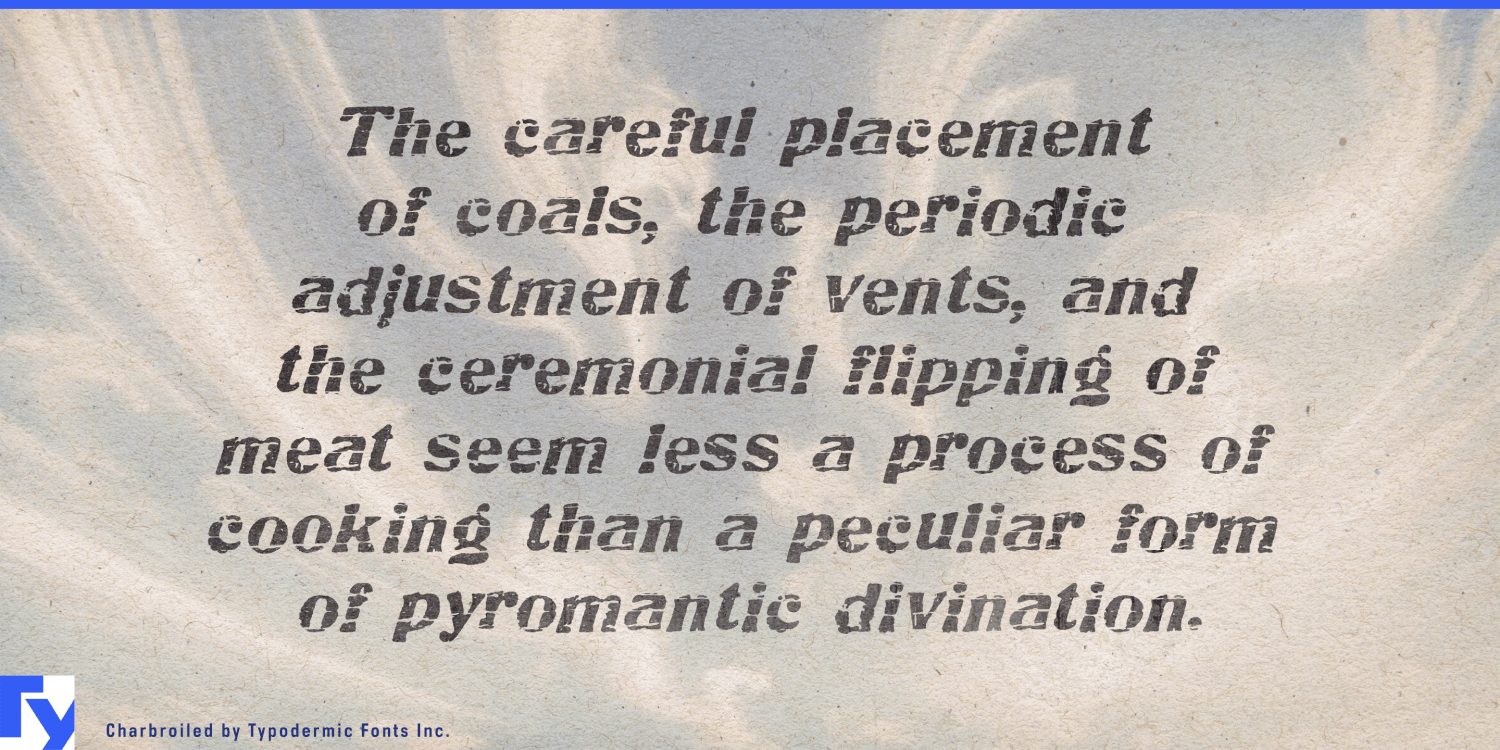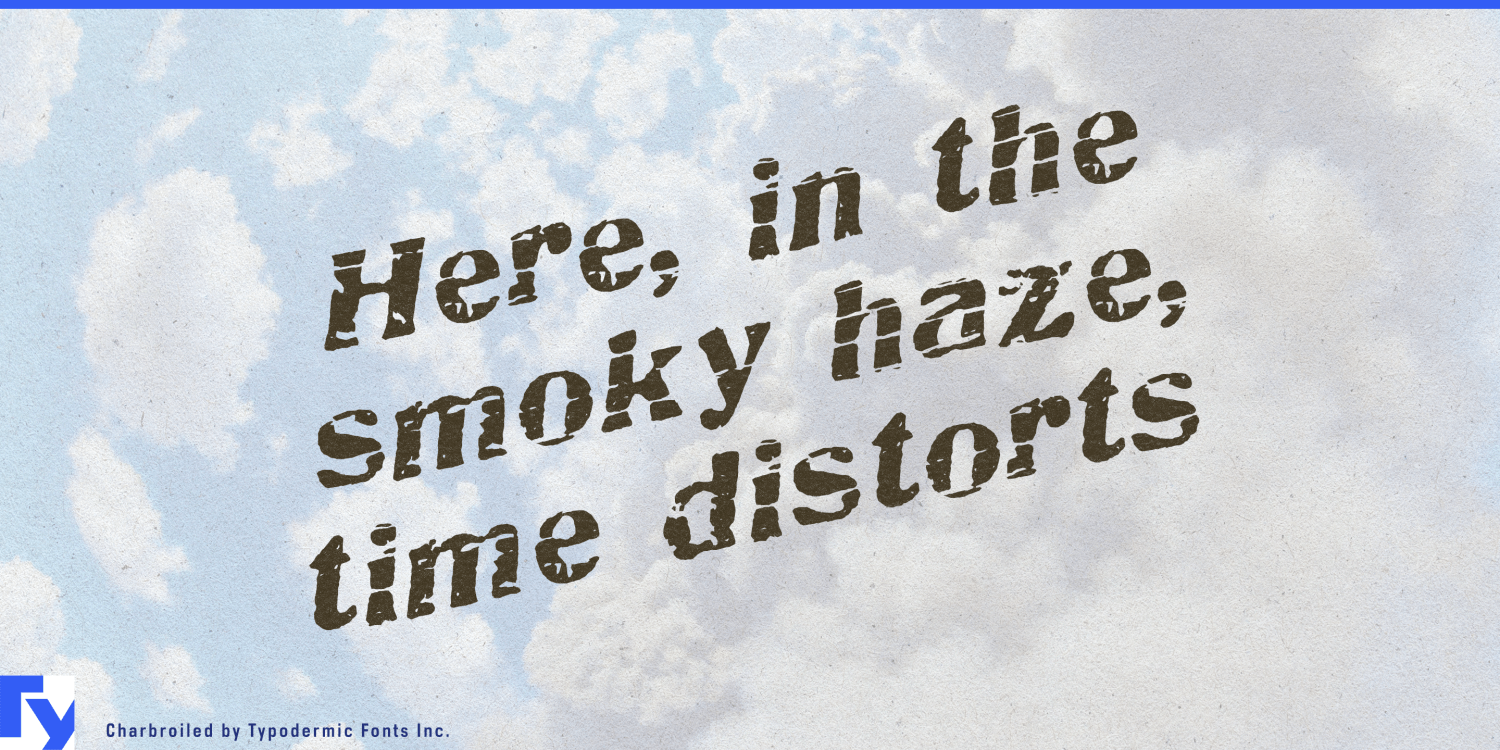
About Charbroiled
Ignite your designs with Charbroiled, a typeface that sizzles with rustic charm and timeless appeal. Inspired by the classic American Italic from 1902, this scorched and antiqued font brings a dash of vintage flair to the modern designer’s palette.…